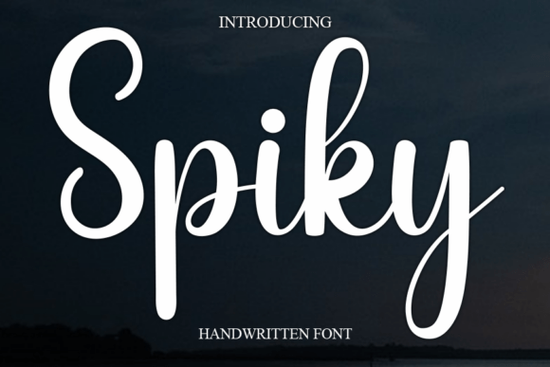
Spiky Font is a unique and expressive handwritten typeface that brings a soft, romantic vibe to any design project. Whether you're working on a wedding invitation, a fashion lookbook, or a marketing campaign, this font adds a touch of elegance without feeling too formal. Its flowing strokes and subtle spikes give it a playful yet sophisticated feel, making it ideal for creative professionals looking to add personality to their work.
Designed with versatility in mind, Spiky Font works well across a range of applications. It's especially popular among designers who want to create something that feels personal and authentic. The font’s natural, hand-drawn appearance makes it perfect for branding, logos, and stationery especially for businesses that want to convey warmth and approachability.
If you're a craftsperson, print-on-demand seller, or small business owner, you'll find that Spiky Font can help elevate your designs without requiring advanced typographic skills. Its readability and charm make it a go-to choice for everything from greeting cards to social media graphics. Plus, it pairs well with other fonts, allowing you to create dynamic layouts that stand out.
Why Choose Spiky Font?
One of the main reasons designers love Spiky Font is its balance between style and usability. Unlike some more ornate fonts, it doesn’t sacrifice legibility for aesthetics. This means you can use it in both large headlines and smaller text without worrying about readability. It also has a wide range of characters, including uppercase, lowercase, numbers, and symbols, making it suitable for a variety of projects.
Best Uses for Spiky Font
Spiky Font shines in projects that require a personal or artistic touch. Here are a few common uses:
- Wedding invitations and stationery – Add a romantic and elegant feel to your event materials.
- Greeting cards – Perfect for birthdays, thank-you notes, and seasonal messages.
- Branding and logos – Create a memorable visual identity that feels warm and inviting.
- Fashion and lookbooks – Use it to label collections or add a stylish touch to your designs.
- Marketing promotions – Make your ads and banners more eye-catching and engaging.
Its flexibility makes it a great addition to any designer’s toolkit, especially if you're looking to add a handmade or custom feel to your work.
How to Get the Most Out of Spiky Font
To get the best results with Spiky Font, consider pairing it with simpler typefaces for contrast. For example, using it as a headline with a sans-serif font like Arial or Helvetica can create a balanced and professional look. You can also experiment with different sizes and spacing to see what works best for your specific project.
Remember, the key to successful typography is understanding how each font contributes to the overall message and mood of your design. Spiky Font is a great choice when you want to add a touch of warmth and creativity to your work.
Whether you're a seasoned designer or just starting out, Spiky Font offers a simple yet effective way to enhance your projects. With its friendly appearance and wide range of uses, it’s a valuable asset for anyone involved in visual communication.
Quick Checklist:
- Try pairing Spiky Font with a clean sans-serif font for contrast.
- Use it in headings, logos, or decorative elements for a personalized look.
- Ensure it’s readable at different sizes and in various design contexts.